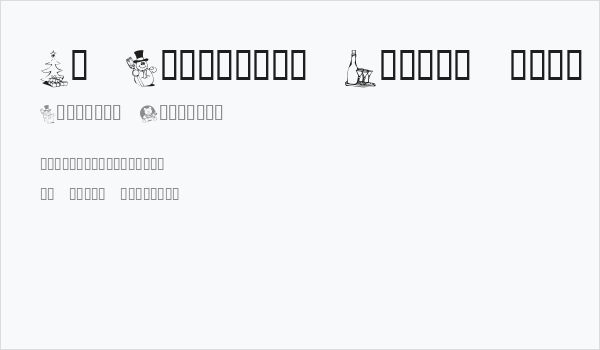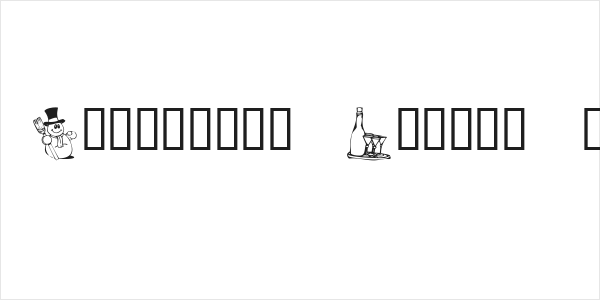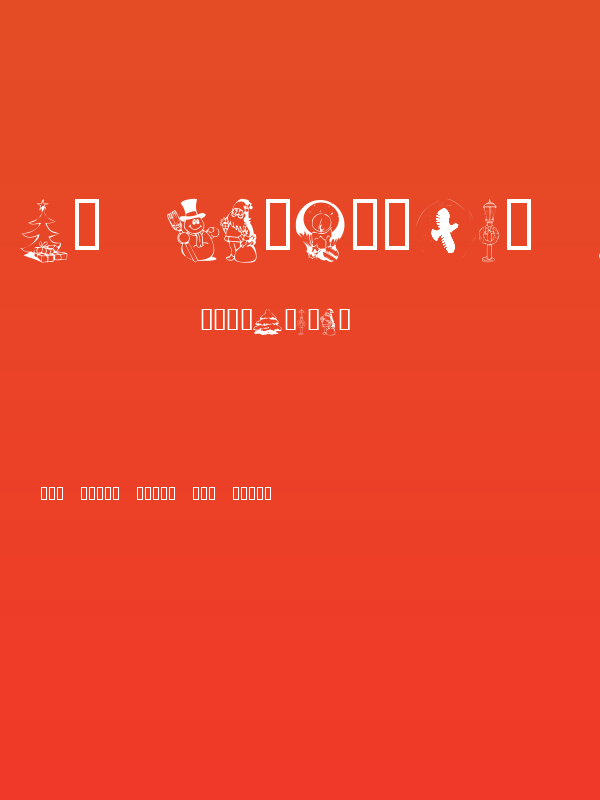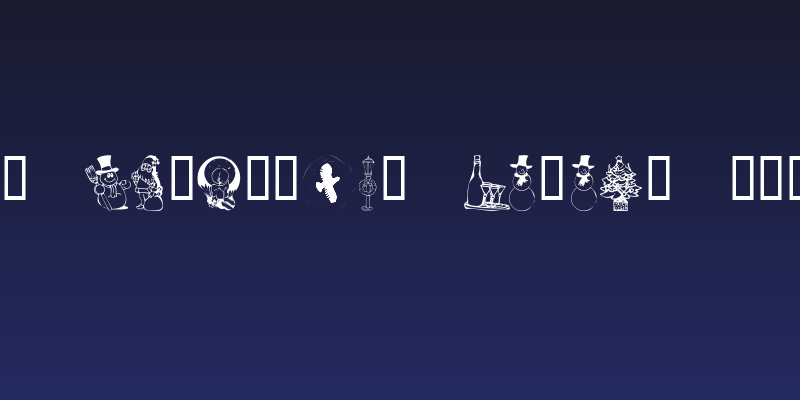
KR Christmas Jewels 2005 Font
KR Christmas Jewels 2005 Description
This is a decorative font featuring a variety of Christmas-themed illustrations. Each character is represented by a unique festive image, including snowmen, Santa Claus, Christmas trees, and other holiday symbols. The style is playful and whimsical, capturing the joyful spirit of the holiday season. The illustrations are detailed and designed to be used as decorative elements rather than traditional text. This font is ideal for adding a festive touch to holiday cards, invitations, and seasonal decorations.
| Use Case | Logos, Decorative elements |
| Proposed Projects | Ideal for holiday cards, festive invitations, seasonal decorations, and Christmas-themed crafts. |